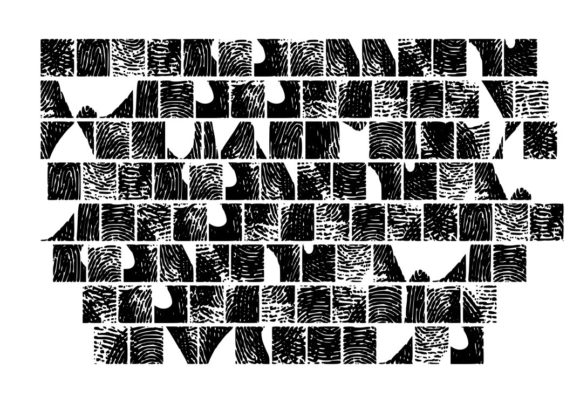
Finger Prints Glyph Font: Elevate Your Designs with Unique Textures
Are you a designer or crafter looking for a way to add a personal touch to your projects? Look no further than Finger Prints Glyph Font, a massive pack of glyphs featuring a set of finger and palm print type textures. This versatile font is perfect for enhancing any natural design or craft project, and we’re excited to dive into its features and benefits.
What is Finger Prints Glyph Font?
Finger Prints Glyph Font is a unique and creative font that offers a collection of finger and palm print textures. These glyphs can be used to add a natural and organic feel to your designs, making them perfect for a wide range of projects, from crafting and scrapbooking to graphic design and digital art.
Key Features of Finger Prints Glyph Font
- Massive pack of glyphs: With Finger Prints Glyph Font, you’ll get access to a vast collection of finger and palm print textures, giving you endless options for your designs.
- Easy to use: This font is designed to be user-friendly, making it easy to incorporate the glyphs into your projects.
- Versatile: Finger Prints Glyph Font can be used for a wide range of projects, from digital designs to craft projects.
- Natural and organic feel: The finger and palm print textures give your designs a unique, natural look that’s perfect for projects that require a personal touch.
Finger Prints Glyph Font offers a range of benefits for designers and crafters, including:
- Unique designs: With Finger Prints Glyph Font, you can create unique and eye-catching designs that stand out from the crowd.
- Time-saving: The font’s ease of use and versatility save you time and effort, allowing you to focus on other aspects of your project.
- Increased creativity: The natural and organic feel of the glyphs can inspire creativity and help you think outside the box.
- Professional results: Finger Prints Glyph Font can help you achieve professional-looking results, even if you’re a beginner.
Ideas for Using Finger Prints Glyph Font
Here are some ideas for using Finger Prints Glyph Font in your designs:
- Scrapbooking: Add a personal touch to your scrapbook pages with finger and palm print textures.
- Graphic design: Use the glyphs to create unique and eye-catching graphics for your clients or personal projects.
- Crafting: Incorporate the glyphs into your craft projects, such as handmade cards, gift tags, or journal pages.
- Digital art: Use Finger Prints Glyph Font to add texture and interest to your digital art pieces.
Finger Prints Glyph Font is a versatile and creative font that offers a unique set of finger and palm print textures. With its ease of use, massive pack of glyphs, and natural and organic feel, it’s perfect for designers and crafters looking to add a personal touch to their projects. Whether you’re working on a scrapbook page, graphic design project, or craft project, Finger Prints Glyph Font is sure to inspire creativity and help you achieve professional-looking results.